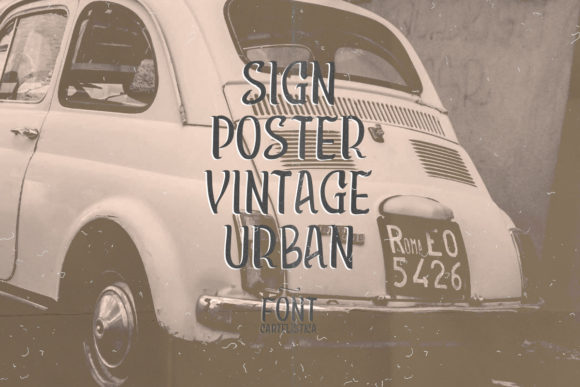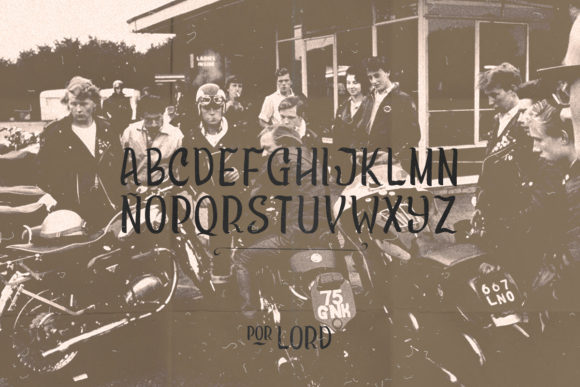
Introducing Cartelística Font: Elevate Your Designs with a Vintage Flair
Are you on the lookout for a font that can add a touch of elegance and sophistication to your designs? Look no further than Cartelística, a great handwritten font with a vintage feel that’s perfect for a wide range of design projects. From branding and headings to wedding designs, invitations, signatures, logos, labels, and more, Cartelística is the perfect choice for designers and crafters who want to take their work to the highest level.
The Charm of Cartelística
Cartelística is a beautifully crafted handwritten font that’s reminiscent of traditional vintage typography. Its unique charm lies in its elegant and flowing lines, which give it a distinctive character that’s hard to find in modern fonts. Whether you’re looking to create a luxurious brand identity, a stunning wedding invitation, or a beautiful label, Cartelística is the perfect choice.
One of the best things about Cartelística is its versatility. This amazing font can be used for a wide range of design projects, including:
- Branding: Create a luxurious brand identity with Cartelística’s elegant and sophisticated lines.
- Headings: Use Cartelística to add a touch of elegance to your headings and titles.
- Wedding Designs: Create stunning wedding invitations, programs, and decorations with Cartelística’s vintage charm.
- Invitations: Whether it’s a birthday party, baby shower, or graduation ceremony, Cartelística is the perfect choice for creating beautiful invitations.
- Signatures: Add a touch of elegance to your signatures with Cartelística’s flowing lines.
- Logos: Create a unique and memorable logo with Cartelística’s distinctive character.
- Labels: Use Cartelística to create beautiful labels for your products, gifts, or crafts.
Why Choose Cartelística?
So why choose Cartelística over other fonts? Here are just a few reasons why Cartelística stands out:
- Unique Character: Cartelística has a distinctive character that’s hard to find in modern fonts.
- Elegant and Sophisticated: Cartelística’s flowing lines and elegant curves make it perfect for designs that require a touch of sophistication.
- Vintage Charm: Cartelística’s vintage feel is perfect for designers and crafters who want to add a touch of nostalgia to their designs.
- High-Quality: Cartelística is a high-quality font that’s designed to deliver exceptional results.
Tips for Using Cartelística
Here are a few tips for using Cartelística to get the best results:
- Use it as a Headline Font: Cartelística is perfect for use as a headline font, where its elegant lines and vintage charm can really shine.
- Pair it with Other Fonts: Cartelística pairs well with other fonts, so don’t be afraid to experiment with different combinations.
- Experiment with Colors: Cartelística looks great in a range of colors, so don’t be afraid to experiment and find the perfect color for your design.
In conclusion, Cartelística is a great handwritten font with a vintage feel that’s perfect for designers and crafters who want to elevate their designs to the highest level. With its elegant lines, sophisticated curves, and distinctive character, Cartelística is the perfect choice for a wide range of design projects. Whether you’re looking to create a luxurious brand identity, a stunning wedding invitation, or a beautiful label, Cartelística is the perfect choice.